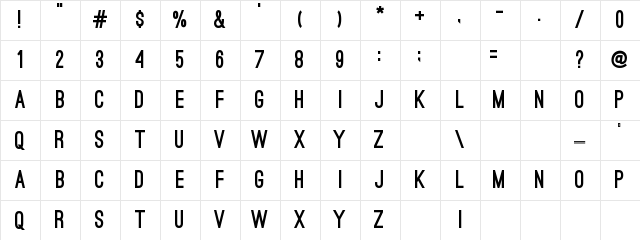
Ostrich Sans Black Free Font
Ostrich Sans Black
Foundry: Tyler Finck
Designer: Tyler Finck
Design Context for Ostrich Sans
Ostrich Sans is a composed and adaptable typeface that performs quietly and consistently across a wide range of design contexts.
Who designed the Ostrich Sans Black font?